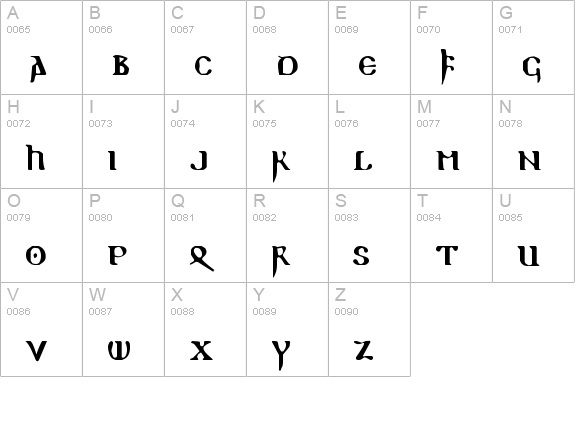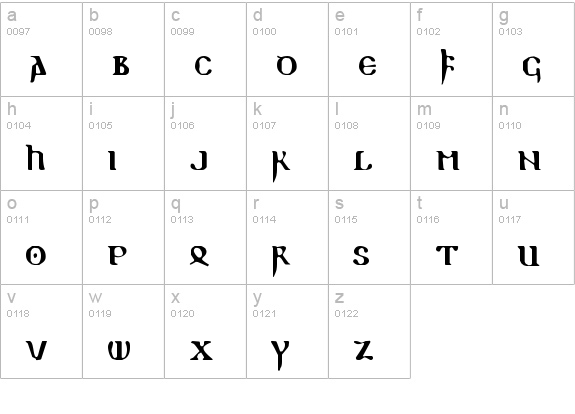
ReadableGothic Font Details
The ReadableGothic font is a stunning blend of elegance and readability, perfect for adding a touch of sophistication to any design project. With its intricately crafted letters and delicate curves, this font captures the essence of Gothic art while maintaining excellent legibility. Each character is meticulously designed to ensure that every word written in ReadableGothic is a work of art in itself. One of the most remarkable features of this font is its versatility. Whether you're designing a logo, creating a poster, or crafting a wedding invitation, ReadableGothic will effortlessly adapt to suit your needs. Its timeless appeal makes it suitable for both modern and vintage designs, allowing you to create a unique and captivating visual experience. But what truly sets ReadableGothic apart is that it is free. Yes, you read that right – this magnificent font is freely available to download at FontsMarket.com. With just a few clicks, you can elevate your design projects to new heights without spending a dime. This accessibility ensures that everyone can experience the beauty and elegance of ReadableGothic, regardless of their budget or resources. So why wait? Unlock the power of ReadableGothic and let your creativity soar. Download this remarkable font today from FontsMarket.com and embark on a design journey that is as captivating as it is free. With ReadableGothic by your side, there are no limits to what you can achieve.